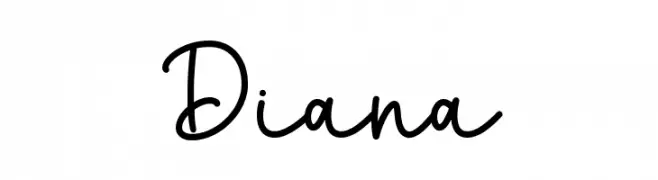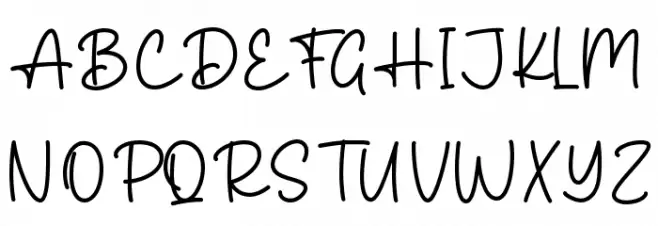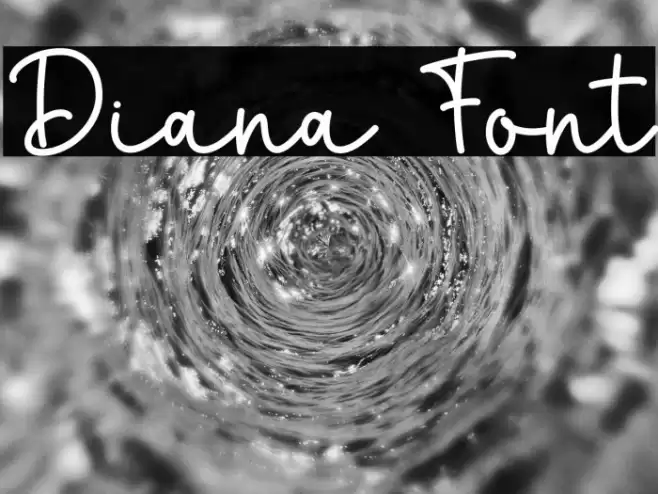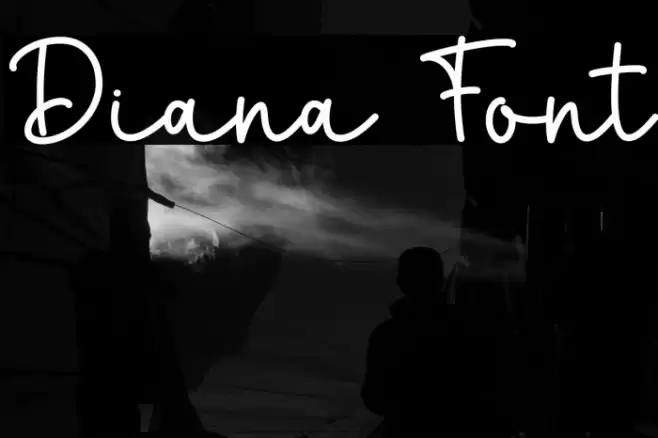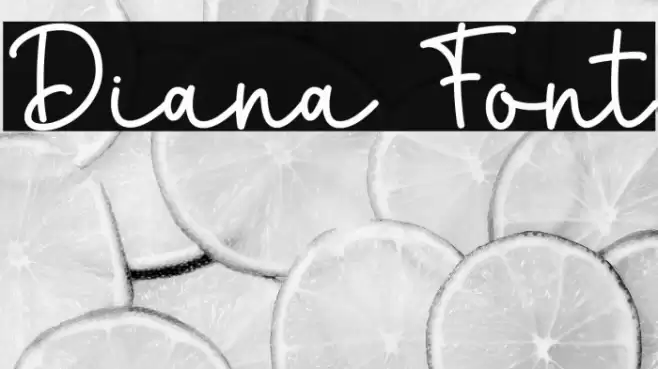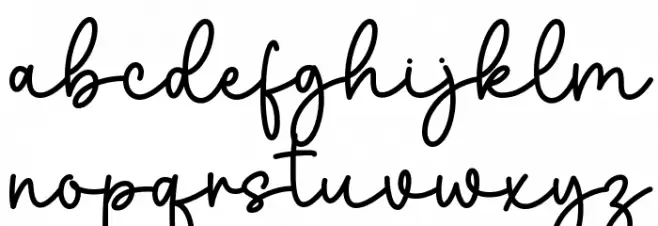
Diana Font
Diana Description
A casual, handwritten script font with a playful and informal style, featuring varying stroke widths and a slightly irregular baseline.
| Overall Style | Casual, Playful, Informal |
| Use Case | Headlines, Body text, Logos, Invitations |